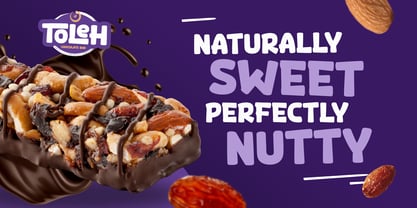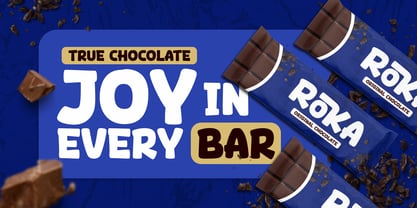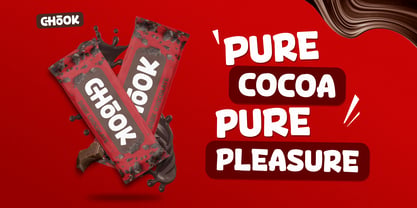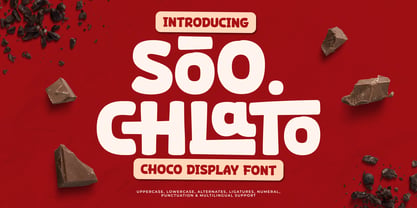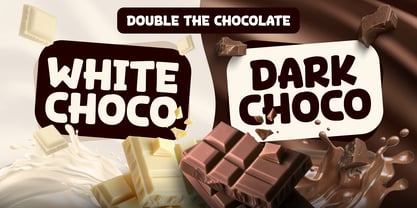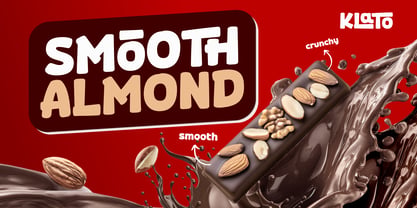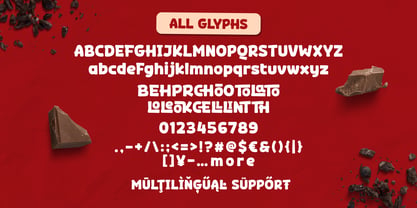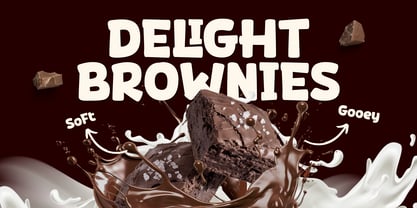
Soo Chlato is a food-inspired display font featuring bold, rounded, and soft letterforms influenced by chocolate textures and sweet treats. Its playful and friendly style delivers a delicious, warm, and eye-catching visual impact at first glance.
Designed for food branding needs, Soo Chlato works perfectly for snack packaging, promotional posters, product labels, and visual content that aims to look fun while maintaining strong readability. The solid proportions ensure clarity across various sizes, from logos to large headlines.
With its cheerful and modern personality, Soo Chlato is ideal for dessert brands, bakeries, cafés, restaurants, and creative food-related projects that want to highlight sweetness, freshness, and appetizing appeal.
- All glyphs and Feature
- Multilingual Support: Fully supports 85+ languages, including:
Afrikaans, Albanian, Asu, Basque, Bemba, Bena, Breton, Catalan, Chiga, Cornish, Croatian, Czech, Danish, Dutch, Embu, English, Esperanto, Estonian, Filipino, Finnish, French, Friulian, Galician, Gusii, Hungarian, Indonesian, Irish, Italian, Kabuverdianu, Kalenjin, Kamba, Kikuyu, Kinyarwanda, Latvian, Lithuanian, Lower Sorbian, Luo, Luxembourgish, Luyia, Machame, Makhuwa-Meetto, Makonde, Malagasy, Maltese, Manx, Meru, Morisyen, North Ndebele, Norwegian Bokmål, Norwegian Nynorsk, Nyankole, Oromo, Polish, Portuguese, Quechua, Romanian, Romansh, Rombo, Rundi, Rwa, Samburu, Sango, Sangu, Scottish Gaelic, Sena, Serbian, Shambala, Shona, Slovak, Slovenian, Soga, Somali, Spanish, Swahili, Swedish, Swiss German, Taita, Teso, Turkish, Upper Sorbian, Uzbek (Latin), Volapük, Vunjo, Walser, Zulu.